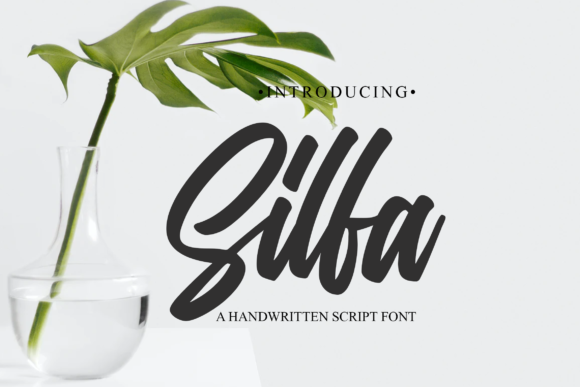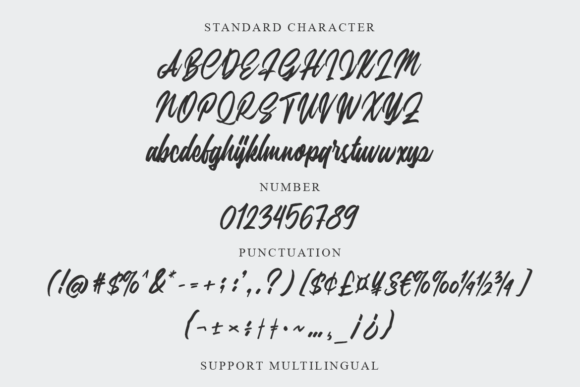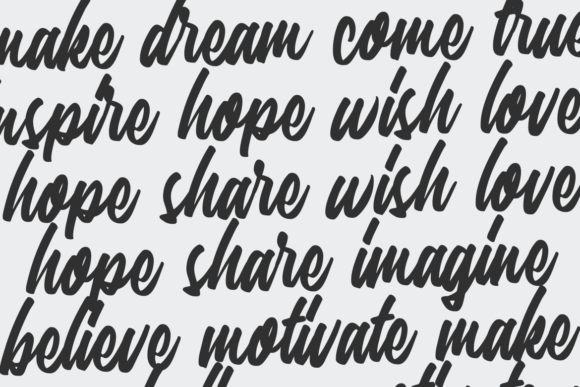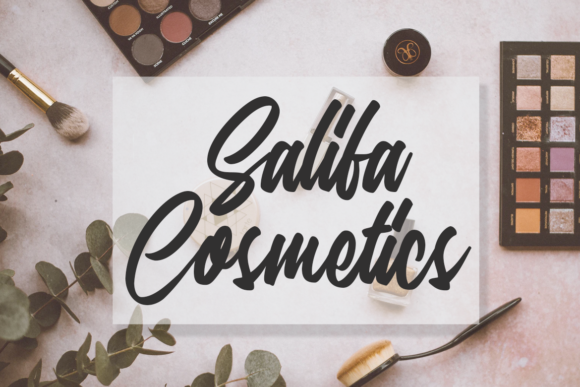
About Silfa Font
Silfa is a friendly handwritten font that is perfect for branding, social media headers, product packaging, wedding invites, cards, and so on. This font is perfectly re-creating natural handwriting, and it will make your designs original and fun!